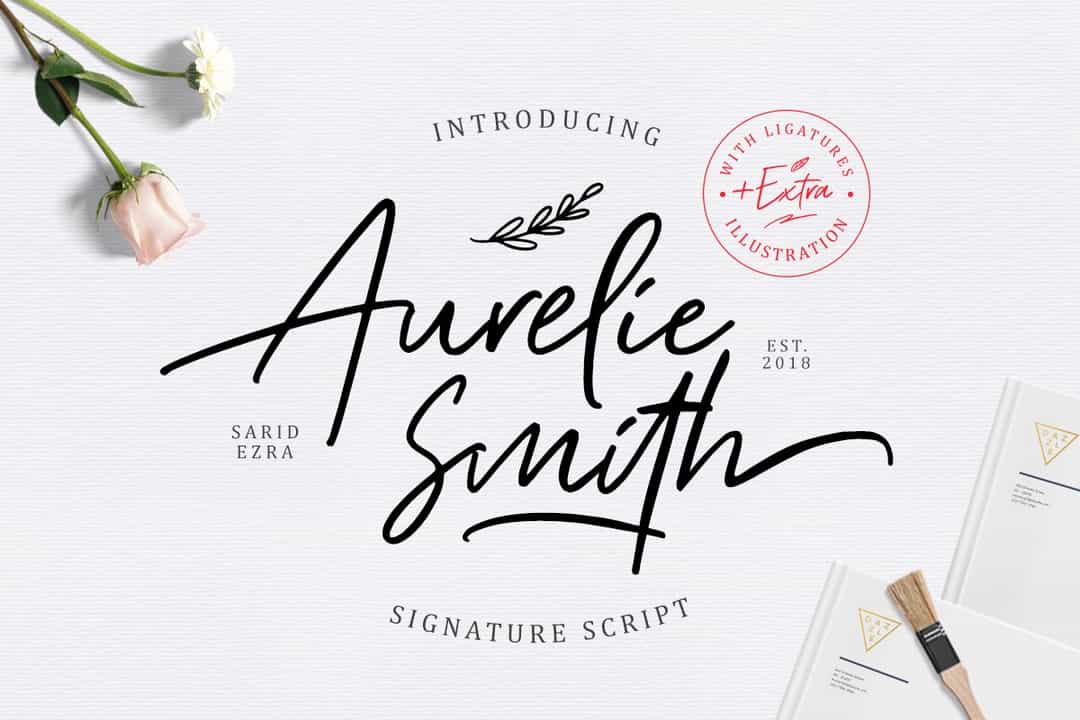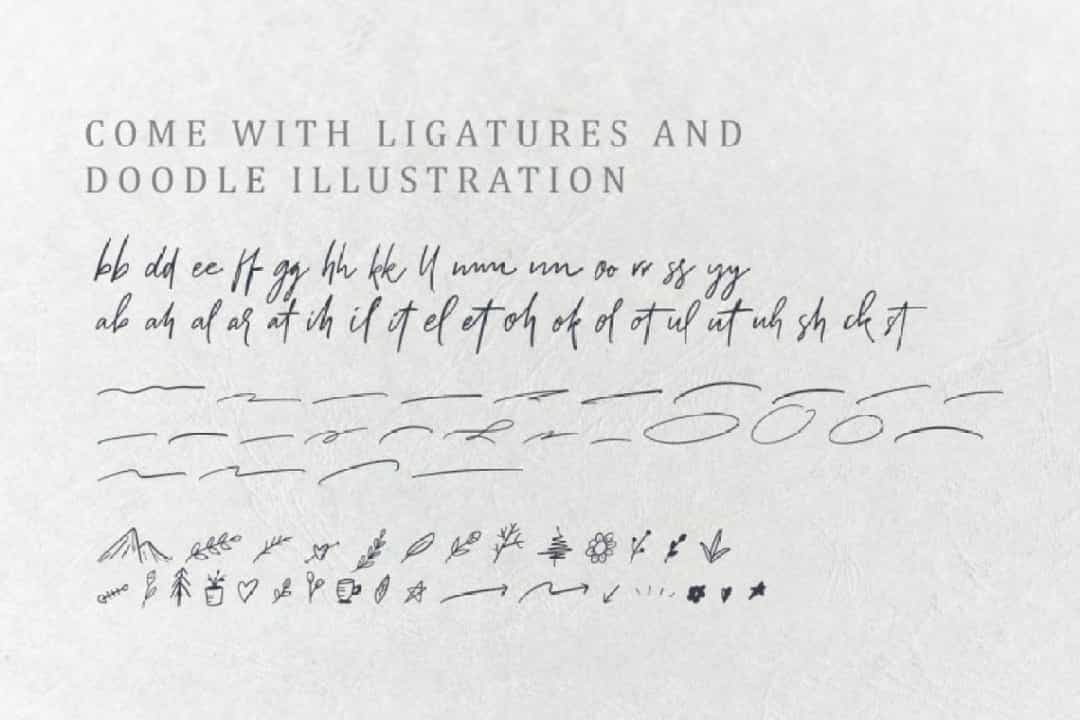
Aurelie Smithis an elegant signature font with added extras! Aurelie Smith provides the uppercase letters and lowercase symbols for multilingual in addition to several ligatures within it. Aurelie Smith suggests that Doodle illustrations can be used as logos for branding among other things.